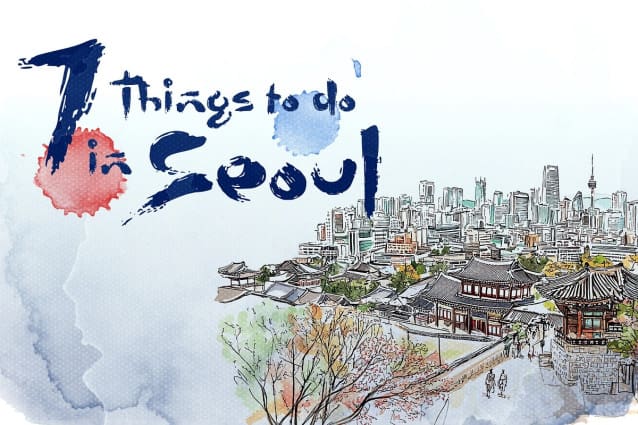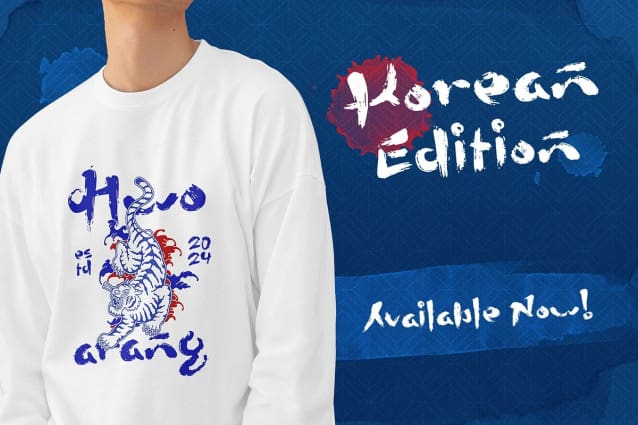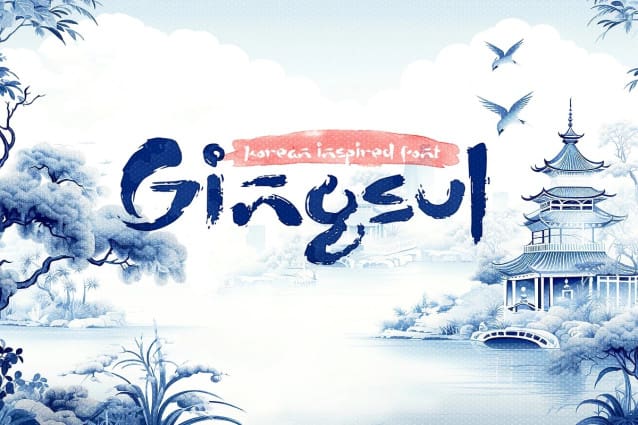
Gingsul Brush Font
Gingsul Brush Font is handmade brush-style font inspired by traditional Korean writings, making it a perfect for any Asian-themed project. It adds an authentic and unique touch to your designs, capturing the essence of Korean culture!